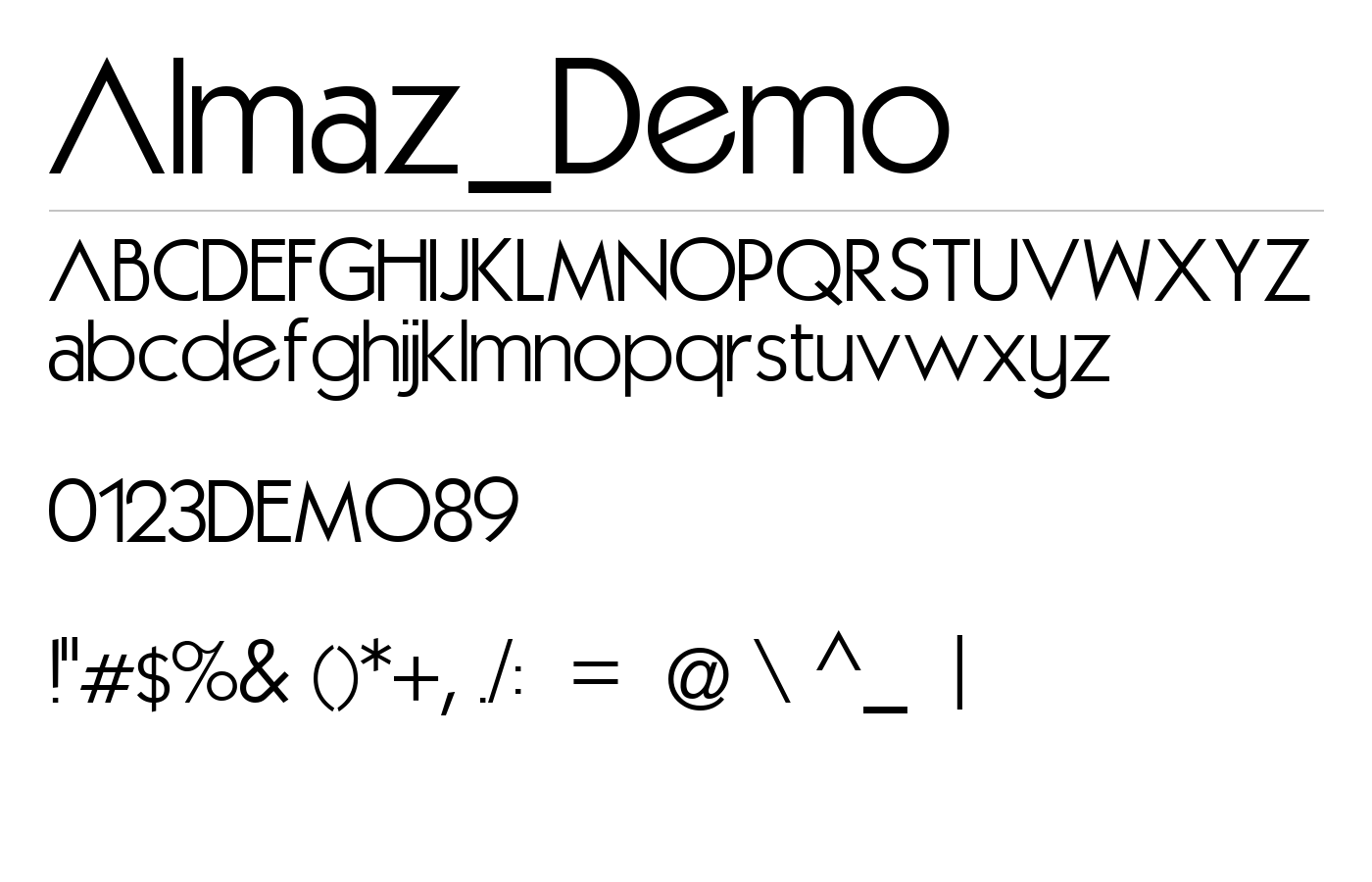
Almaz_Demo is a sleek, modern sans serif font characterized by its clean, geometric letterforms and delicate strokes with low contrast. Its narrow width and high x-height create a stylish yet readable look that suits contemporary design needs, making it ideal for headlines, branding, and editorial use where a refined and minimalist tone is desired. This font conveys a professional and modern personality that works well for luxury, tech, or fashion-oriented projects.
Almaz_Demo Font